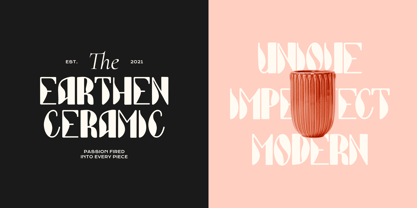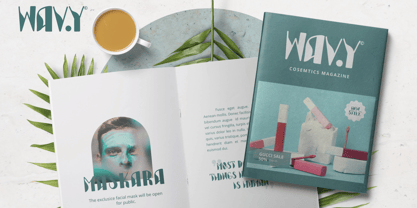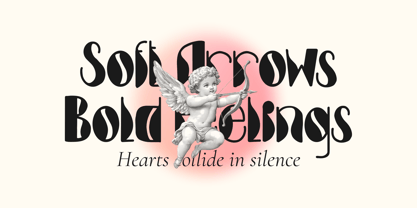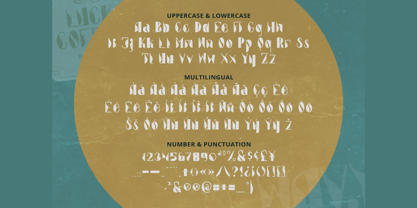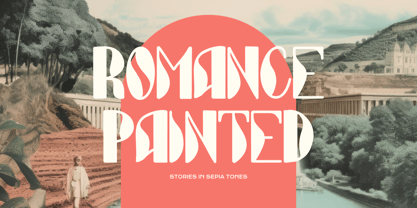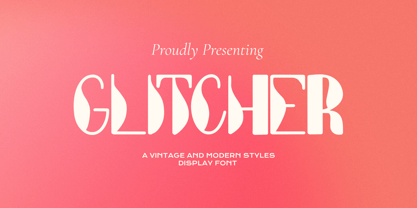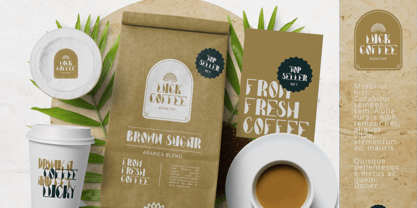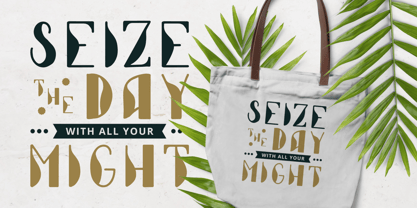
Glitcher
by Imoodev
The Glitcher Font Family was designed by Aulia Savira Putri and published by Imoodev. Glitcher contains 1 styles. More about this family
This font, Glitcher, is a striking fusion of liquid psychedelia and high fashion elegance. It’s a display typeface blending 1970s nostalgia with a sharp, contemporary edge. It utilizes extreme weight distribution, inspired of a classic Didot or Bodoni, but twists it into a psychedelic, avant garde shape. Ideal for: Branding for lifestyle goods (ceramics, coffee, cosmetics), high-end magazine layouts, poster art, and apparel design where a "vintage future" aesthetic is required.